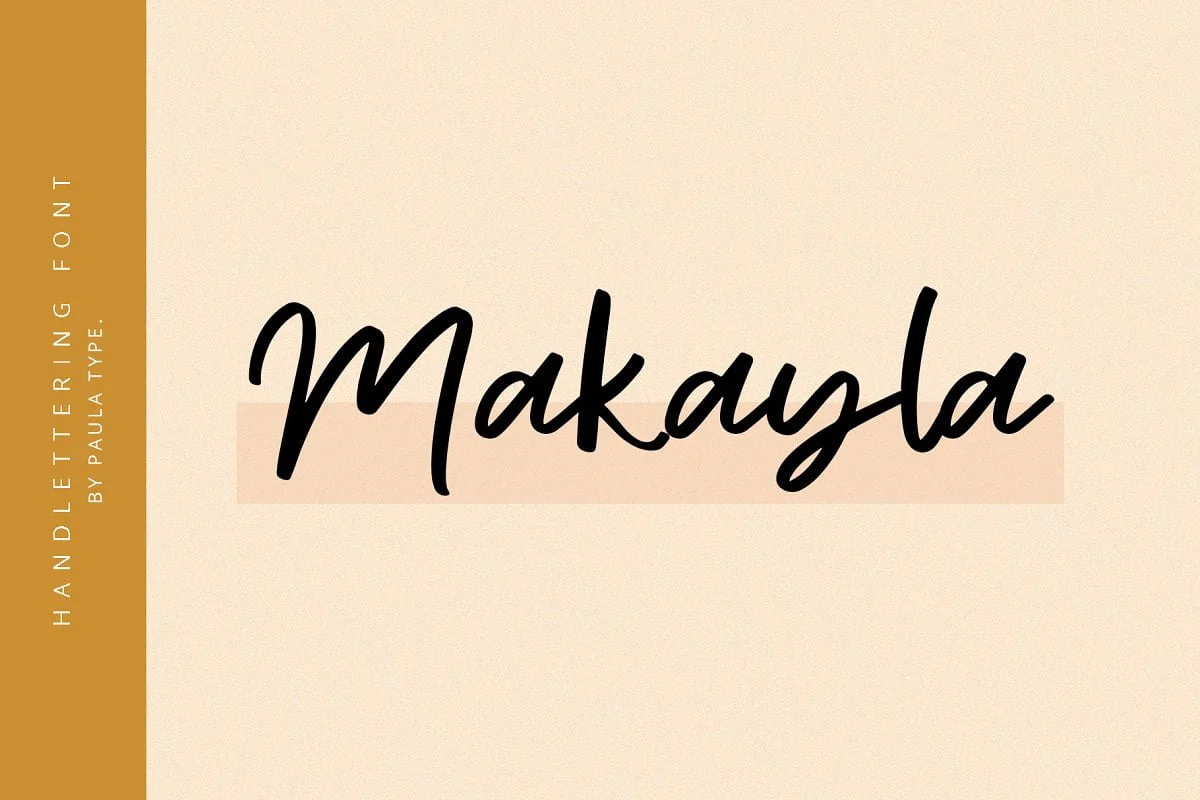
Makayla Font
Makayla Font is perfect for feminine brand logos, fashion boutiques, beauty salons, lifestyle blogs, handmade product labels, social media graphics, inspirational quotes, personal branding, craft business marketing, and elegant stationery designs that require a personal and approachable handwritten aesthetic.
This font is exciting because it perfectly captures the warmth and authenticity of genuine handwriting while maintaining excellent legibility and professional polish. The natural flow and organic character variations create an intimate connection with readers, making messages feel more personal, relatable, and emotionally engaging across all design applications.
The Makayla Font family typically includes uppercase and lowercase letters, numerals, punctuation marks, basic ligatures, and special characters that provide designers with flexibility to create cohesive and personalized projects with authentic handcrafted charm.